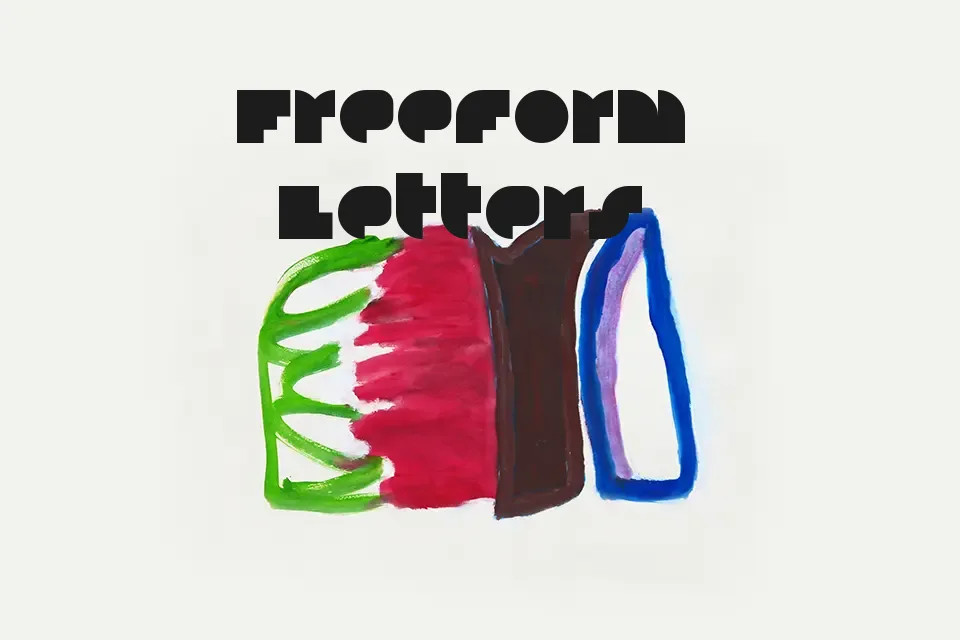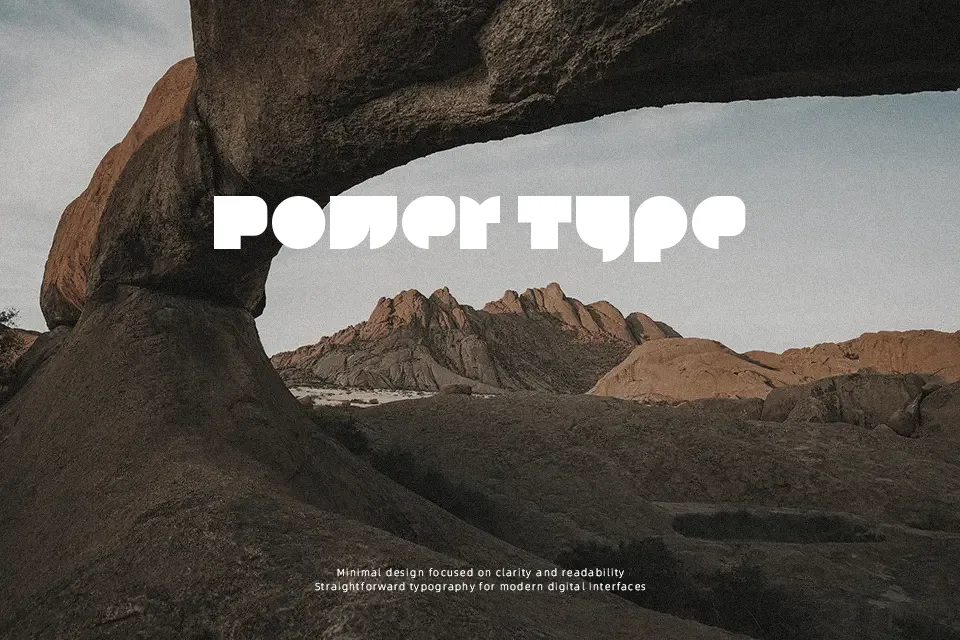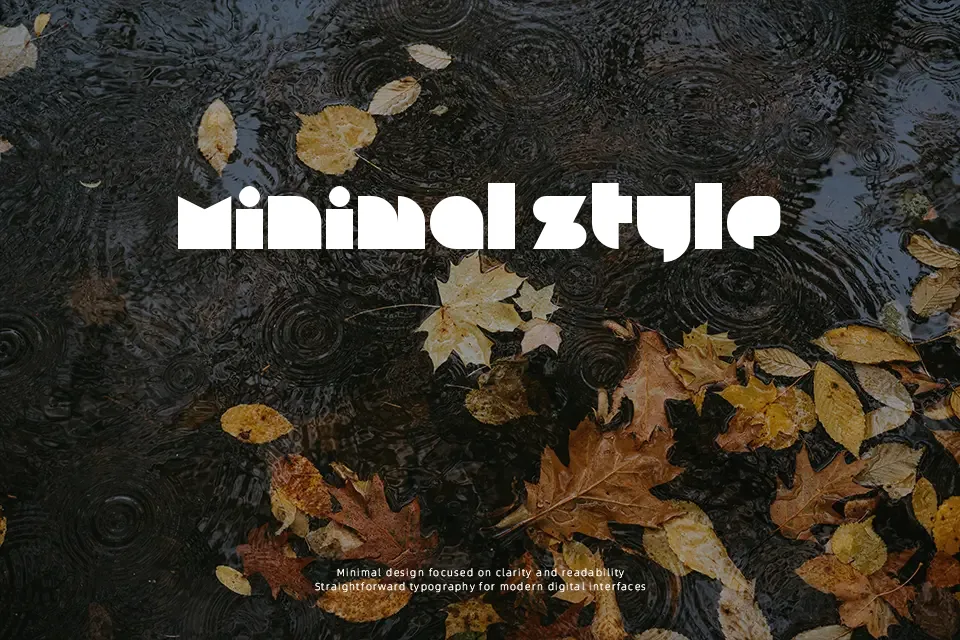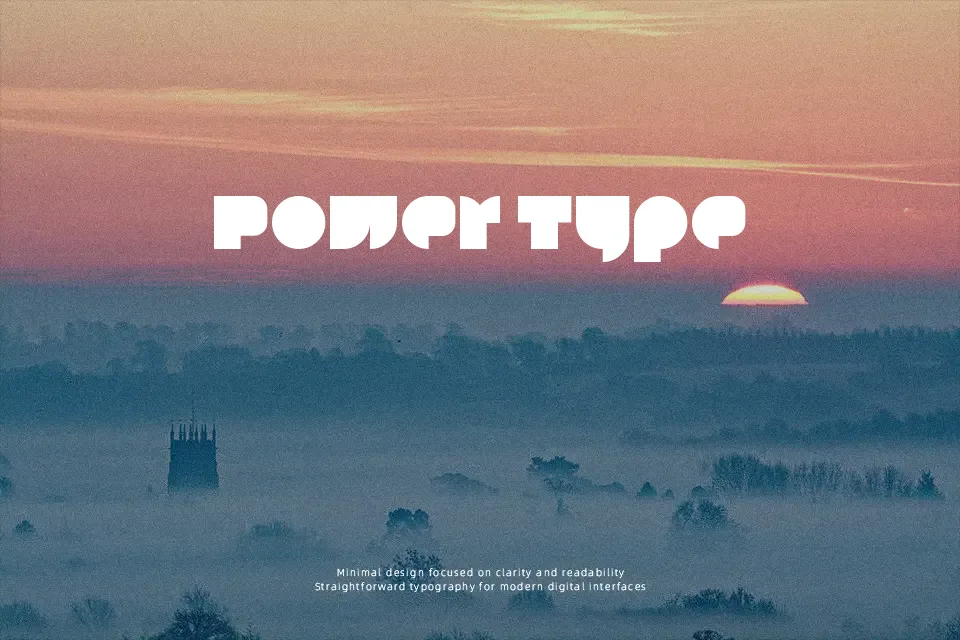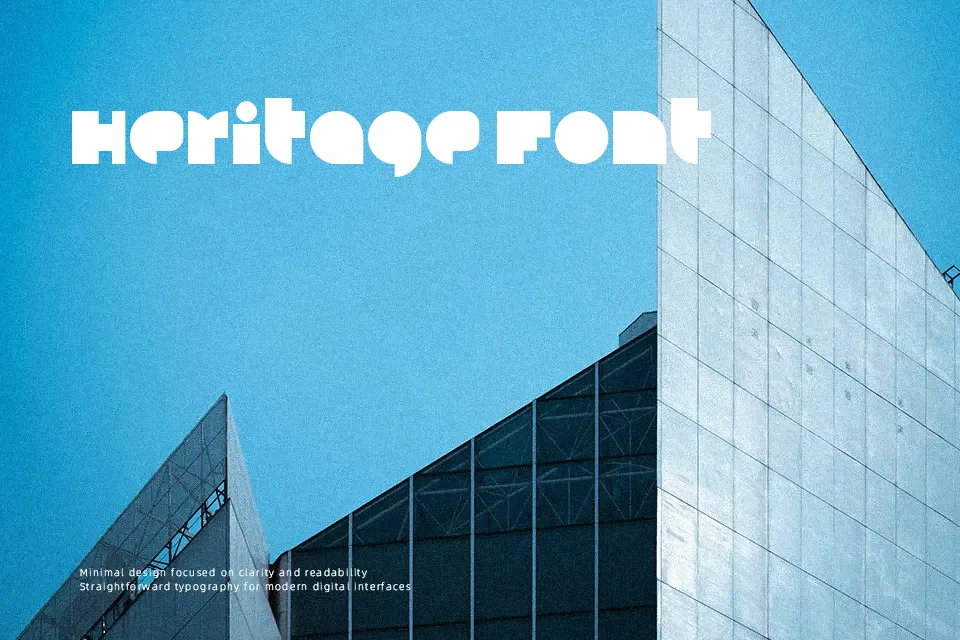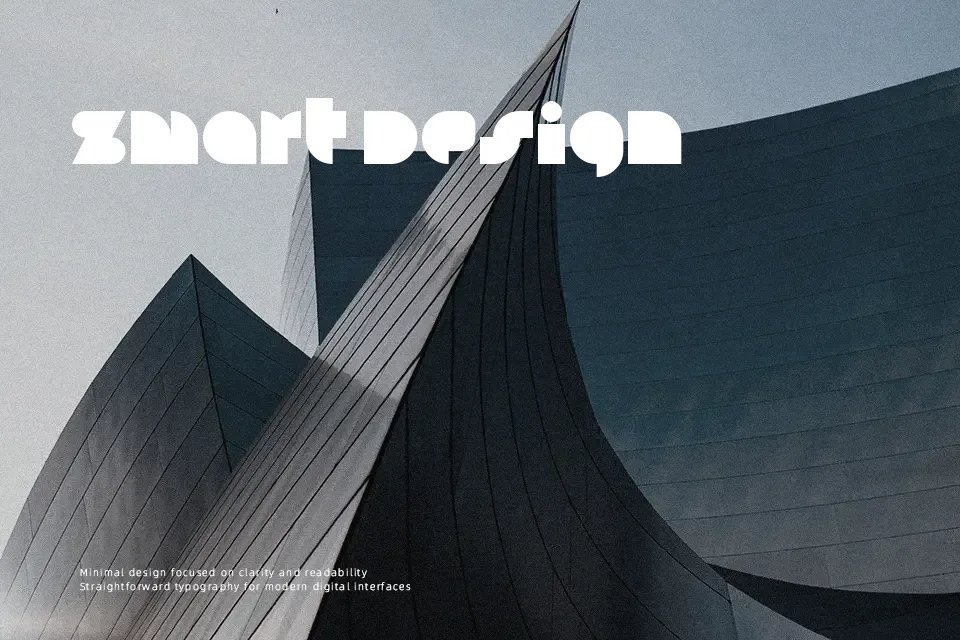
Blackfoot Font
Designed by FontBlast Design
Blackfoot Font uses thick strokes, compact spacing, and simplified geometric shapes that give it a loud, arcade-era look with a slightly cartoon edge. The style feels decorative and informal, so it reads best in short titles, gaming artwork, logo sketches, or event posters that want a nostalgic hit. I would avoid it for body copy, polished editorial work, and small interface text, because the character shapes lean more toward visual impact than steady readability. If you need a headline font that behaves more like a graphic element, this one holds up well.
Best For: retro arcade posters, gaming stream thumbnails, bold logo concepts, nostalgic event flyers
Not Ideal For: long paragraphs, formal brand systems, small app labels, legal or academic documents
Perfect for gaming, headline, and logo, with a creative and cartoon style.